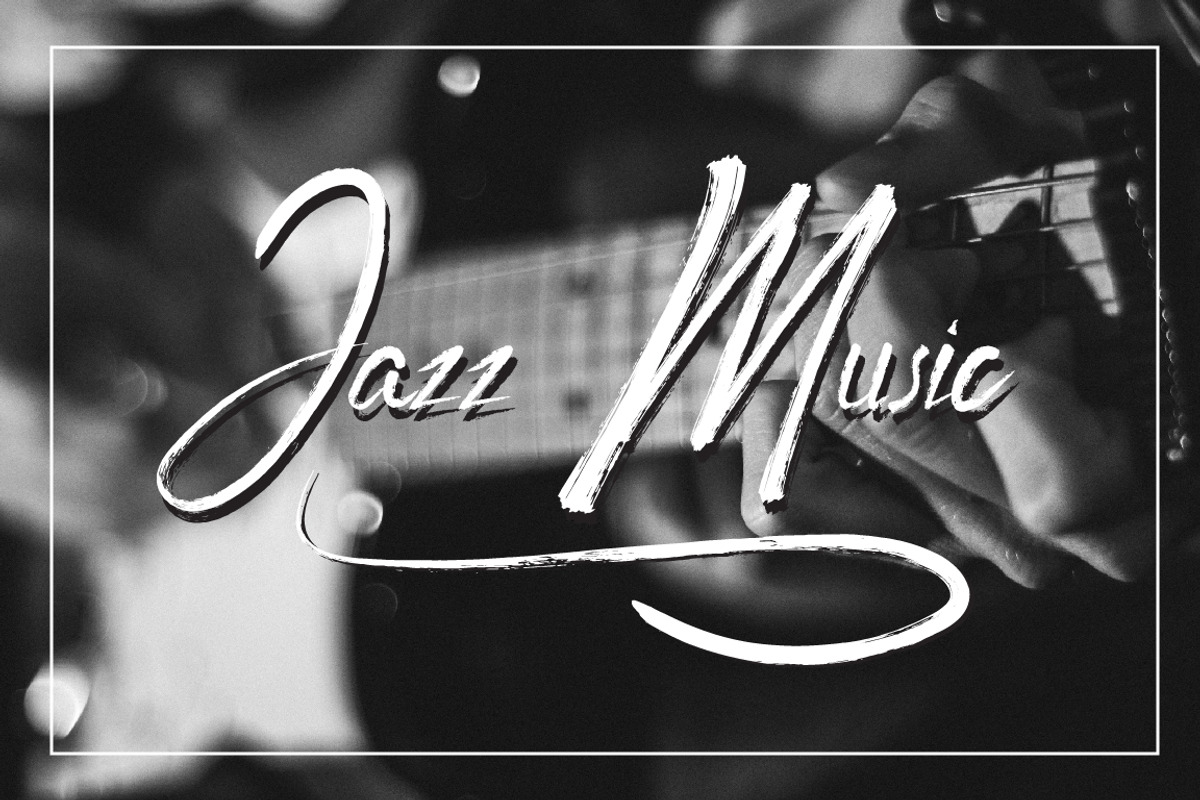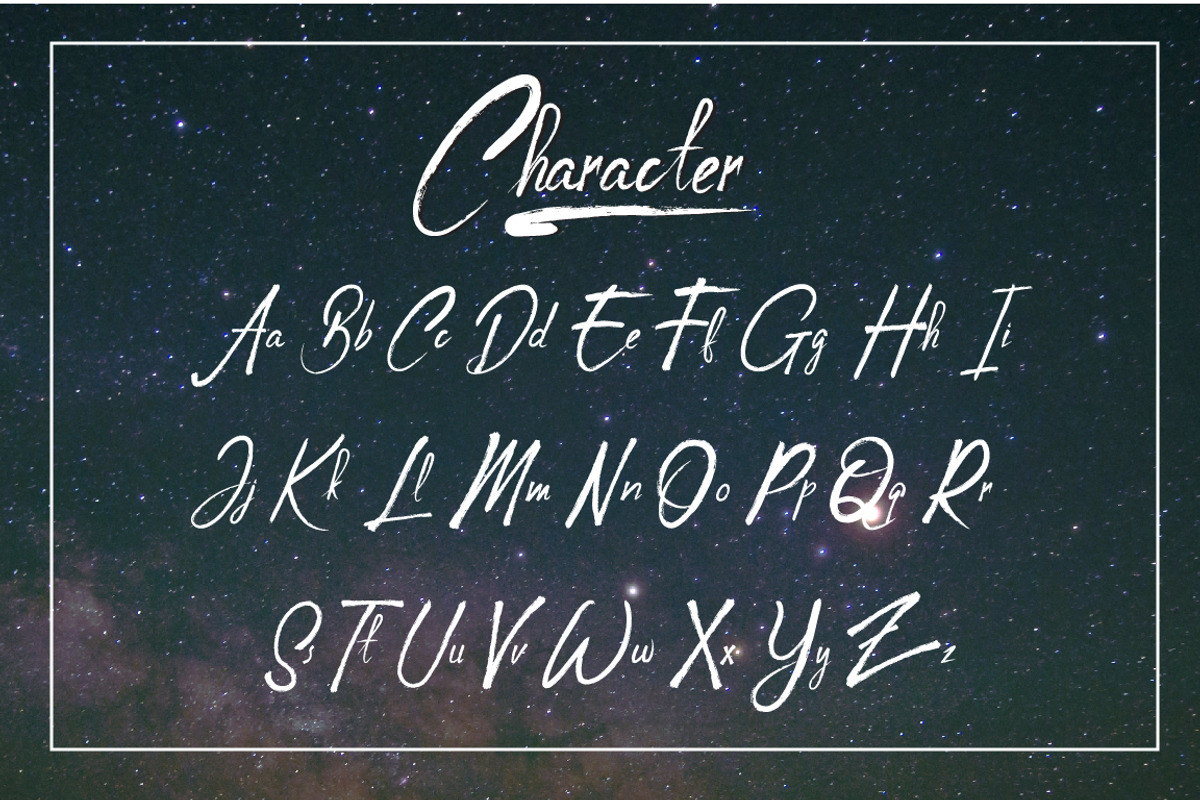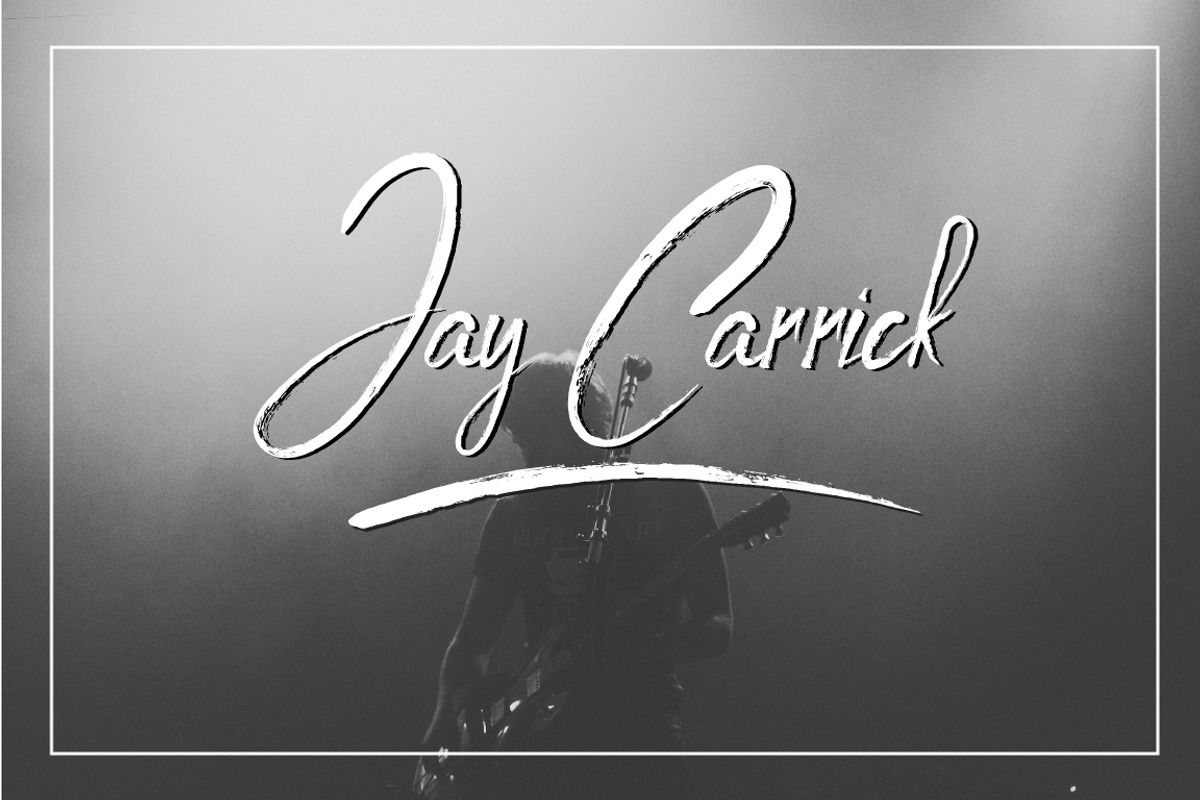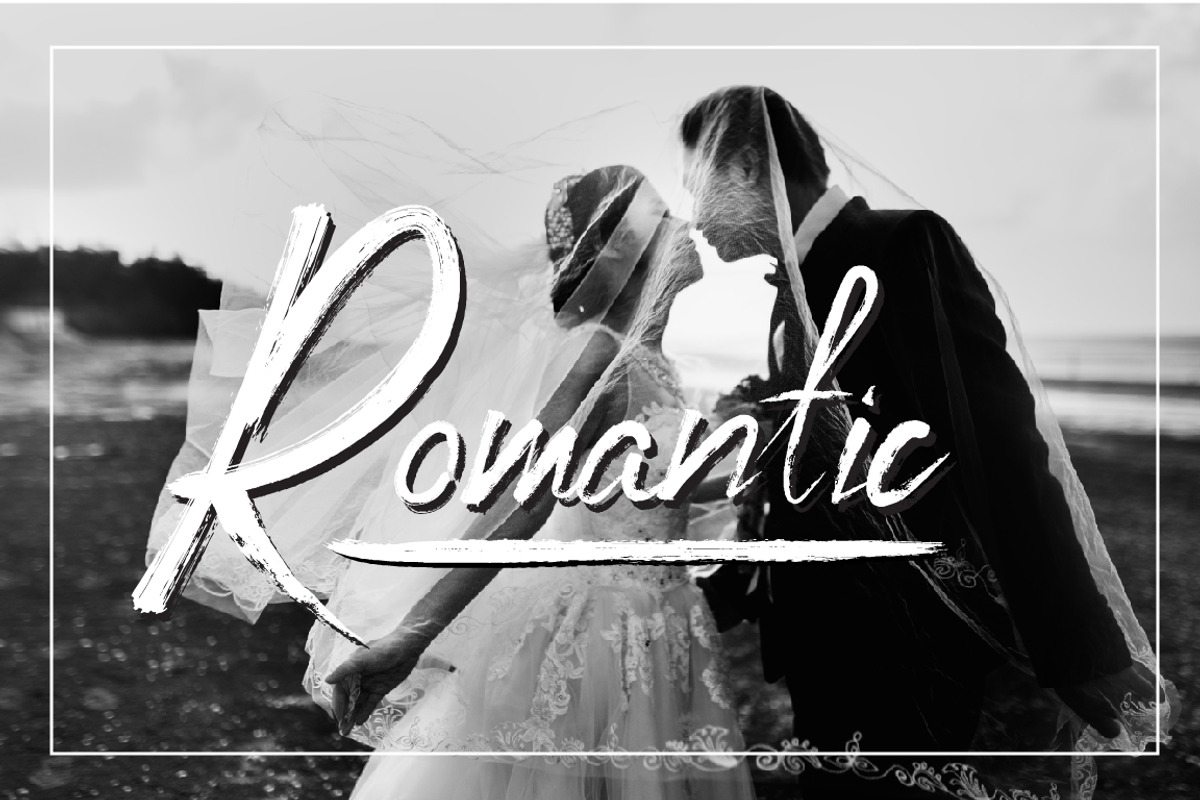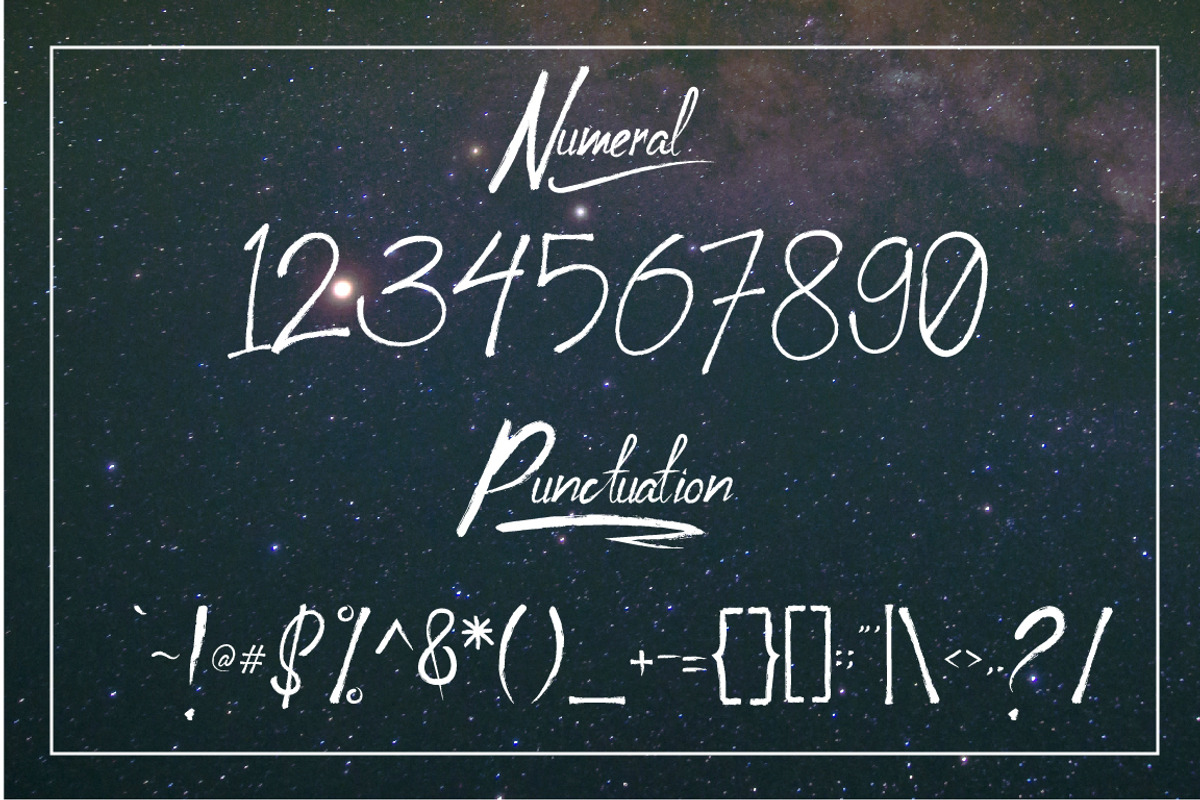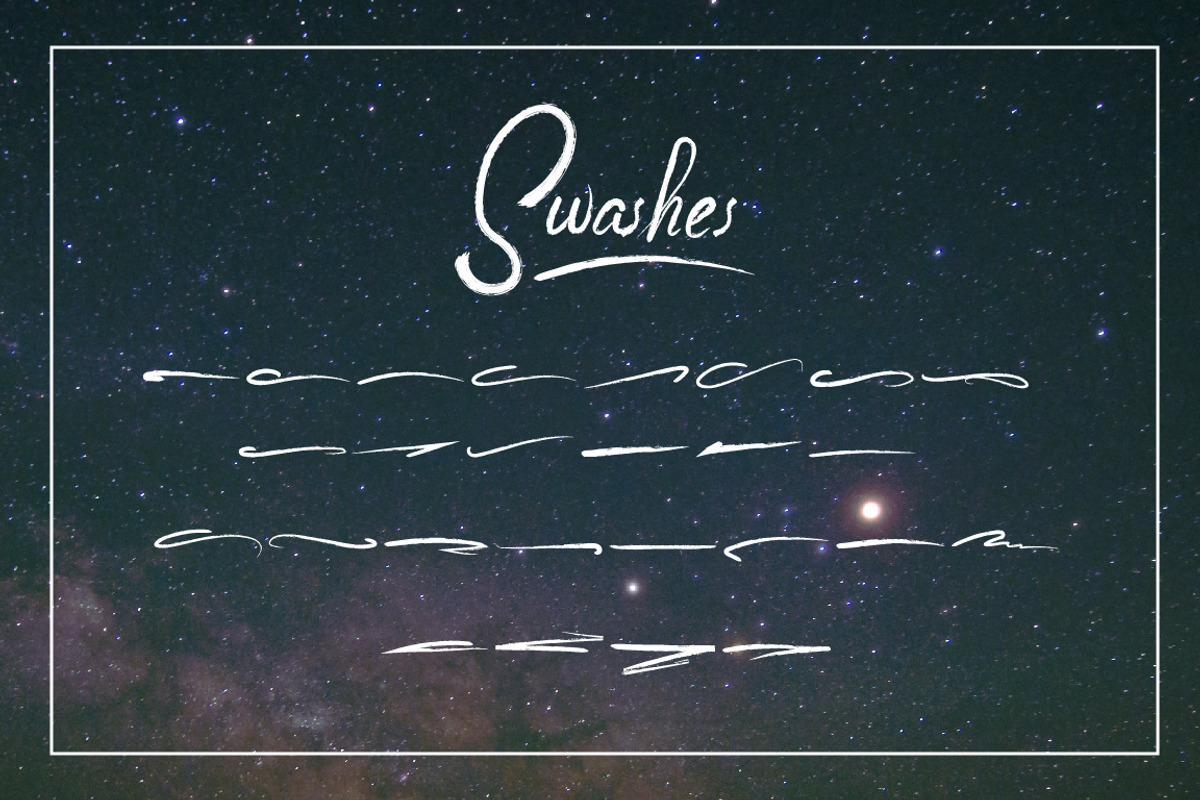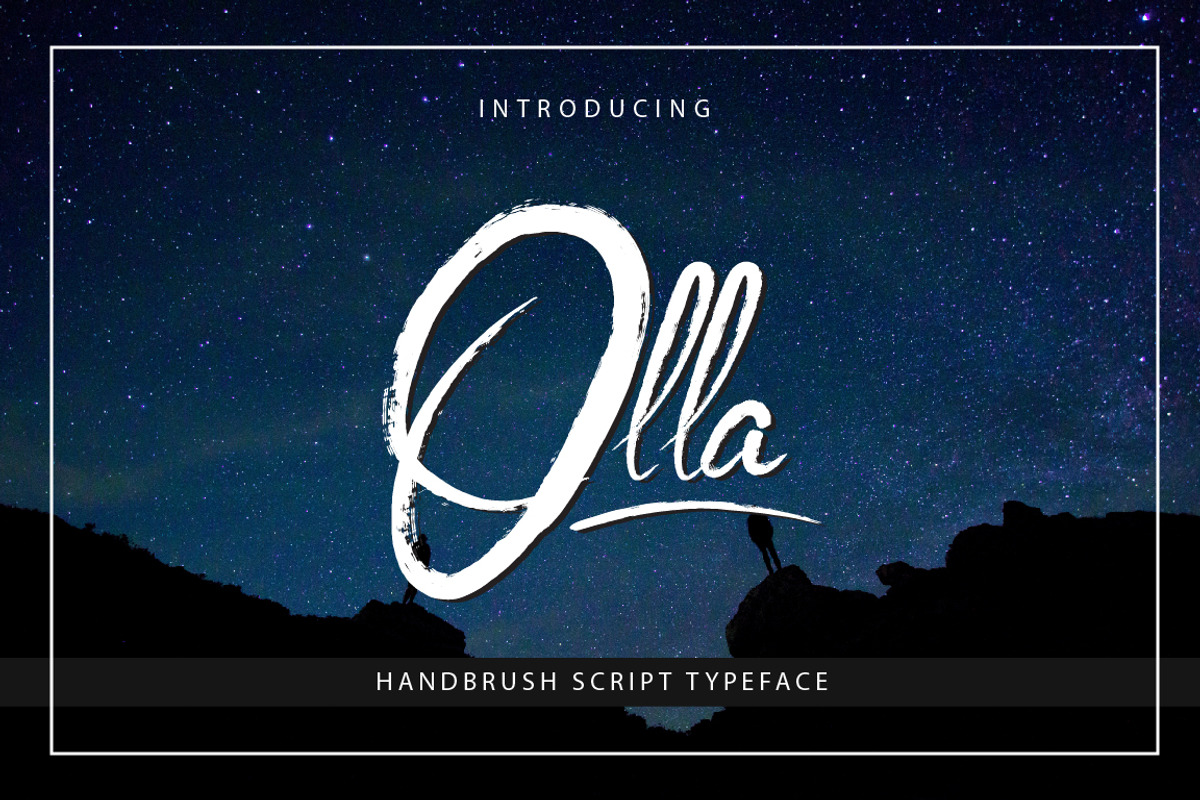
Olla Typeface
Olla Typeface by jaylineart is a font selected for branding, posters, packaging, typography.
- Olla Typeface a Handbrushed script signature style Olla Typeface comes with upper and lowercase characters, punctuation glyphs, numerals, an
Why Olla Typeface is worth a look
Olla Typeface by jaylineart fits naturally into Branding, posters, packaging, typography.